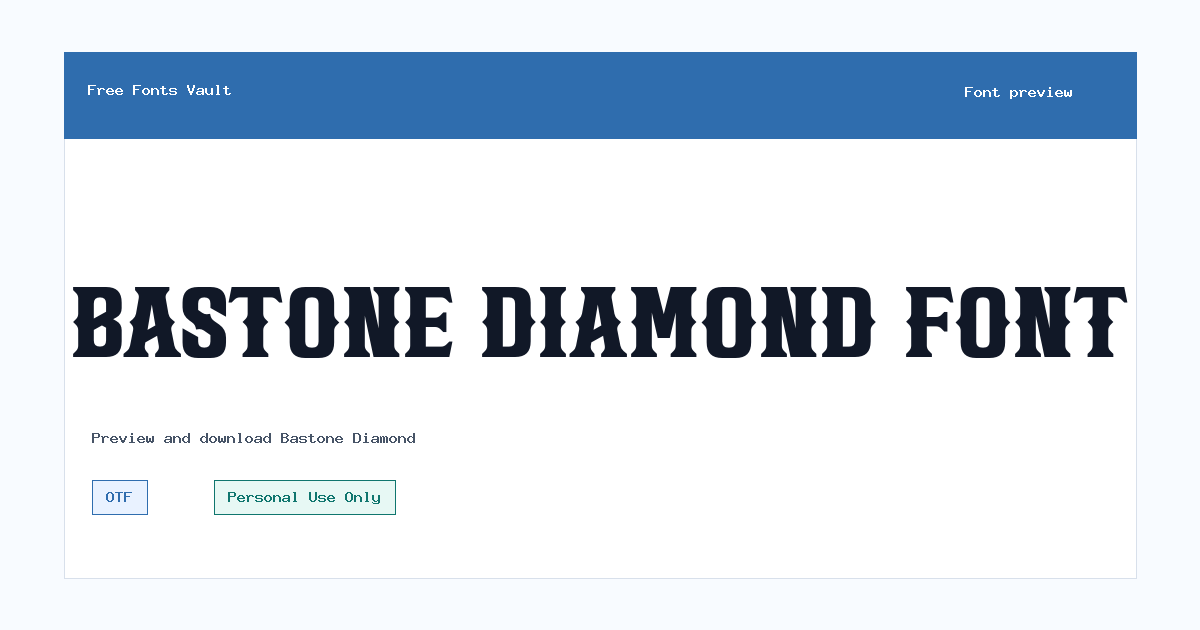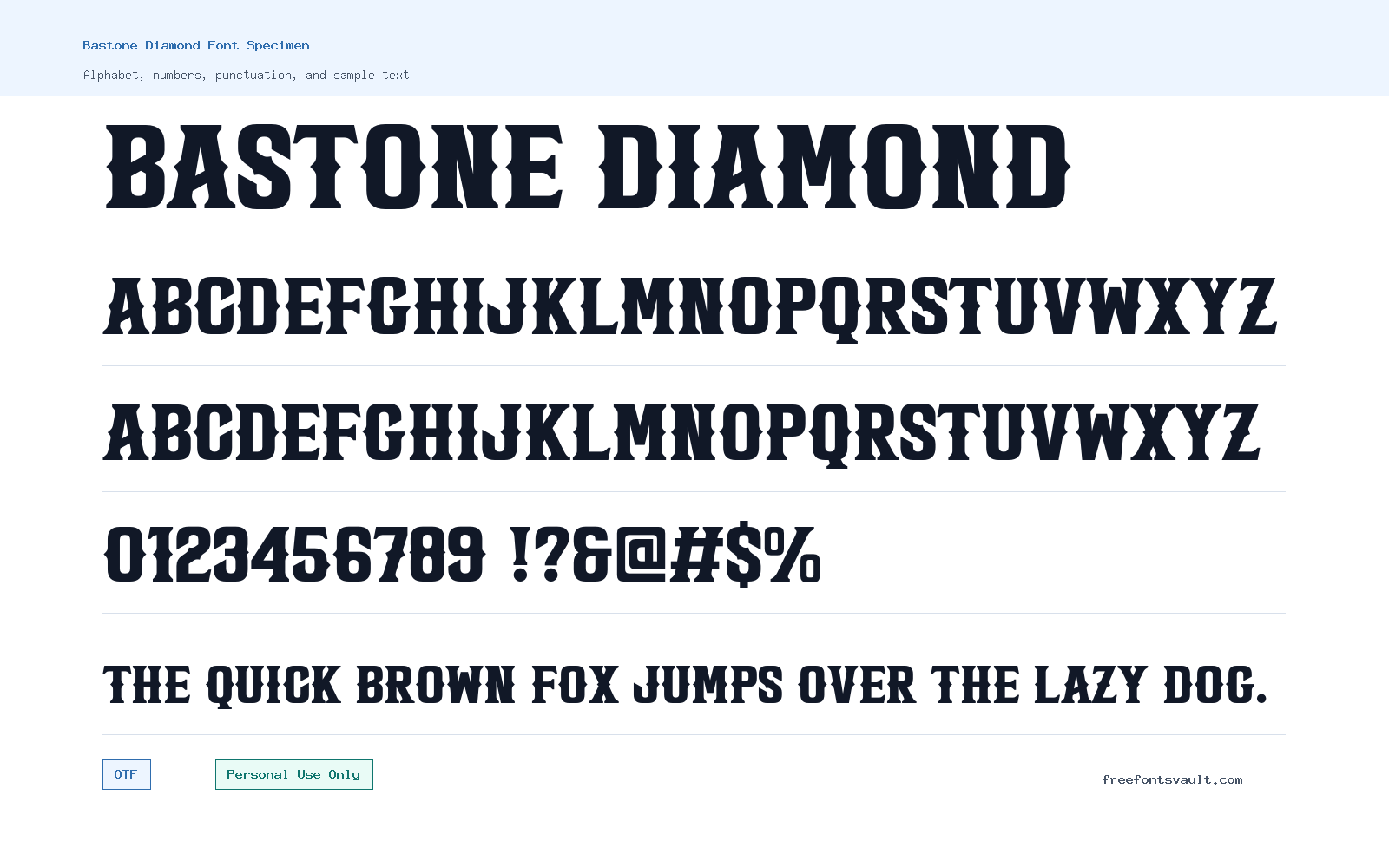
Bastone Diamond
Bastone Diamond Font
• Designer Dida Ahluddin
• Foundry ahweproject
Bastone Diamond is a two-style font family with a serif demo and a script demo, giving you a decorative pairing for personal projects that need contrast between structured lettering and flowing accents.
About Bastone Diamond
Bastone Diamond works as a display-focused font duo rather than a long-text reading face. The serif style gives you a more upright, composed look, while the script style adds movement and a handwritten feel. Because both files are demo OTF fonts, they are best tested in the preview box before you decide how much text to use. Try a brand name, a short quote, initials, or a heading first; that will show you the spacing, curves, and overall balance more clearly than a full paragraph.
Use the serif style when you want the words to feel more stable, then bring in the script for a name, accent word, signature line, or short phrase. This kind of pairing can work well for personal invitation mockups, mood boards, packaging drafts, greeting cards, social graphics, and logo concepts. Keep the script style short, especially at small sizes, because decorative scripts can lose clarity when used for dense copy. For readable layouts, pair Bastone Diamond with a clean sans serif for body text, captions, prices, addresses, or any information that must be understood quickly.
• Display-oriented style suited to short titles, names, and accent typography
• Useful built-in contrast between a structured serif look and a flowing script look
• Personal invitation designs and event mockups
• Logo drafts, monograms, and name-based layouts
• Social media quote graphics and announcement cards
• Greeting cards, labels, and decorative headings
• Typography tests that combine a serif title with a script accent
What styles are included with Bastone Diamond?
The font directory contains two demo OTF files: a serif style and a script style. They are designed to be tested together as a contrasting display pair.
What is Bastone Diamond best used for?
It is best for short, decorative text such as names, headings, invitation mockups, logo drafts, greeting cards, labels, and social graphics. It is not the best choice for long paragraphs.
Can I use Bastone Diamond for body text?
The serif may work for very short supporting text in some layouts, but the family is mainly suited to display use. For longer reading, pair it with a plain sans serif or readable text font.
Who designed Bastone Diamond?
The designer is listed as Dida Ahluddin, and the foundry is listed as ahweproject.